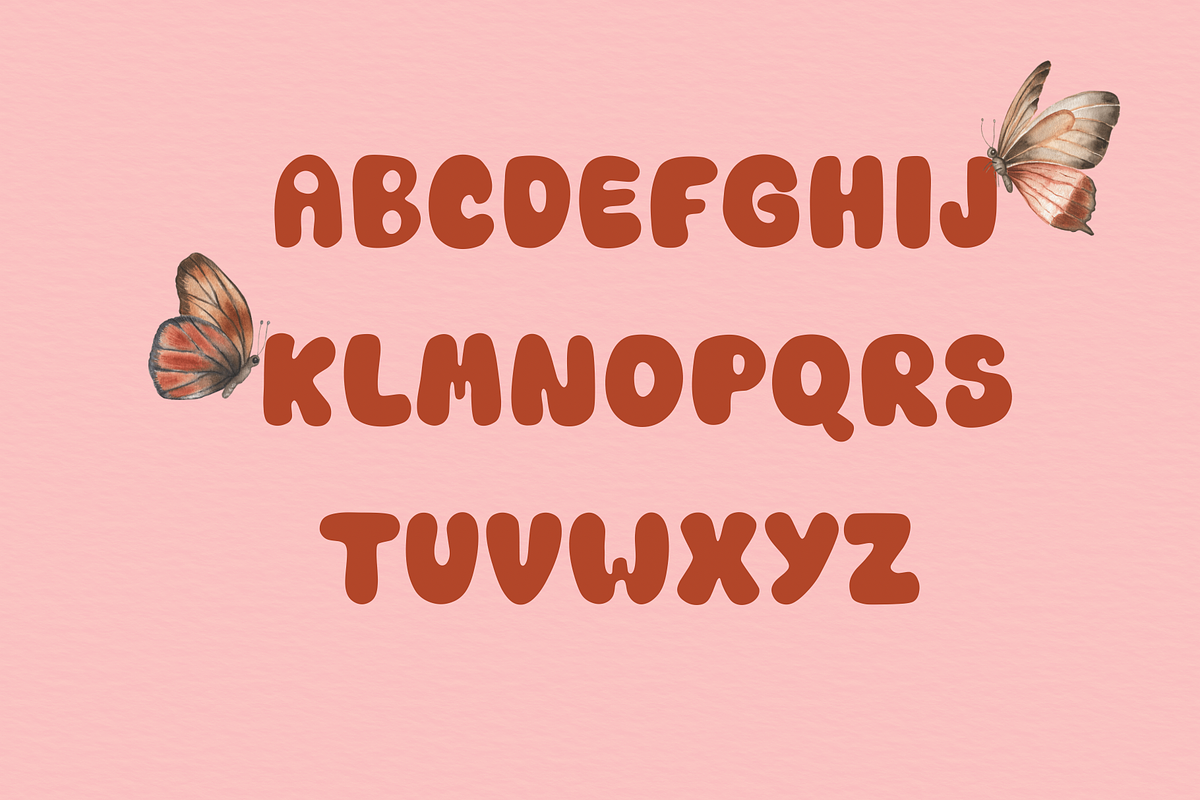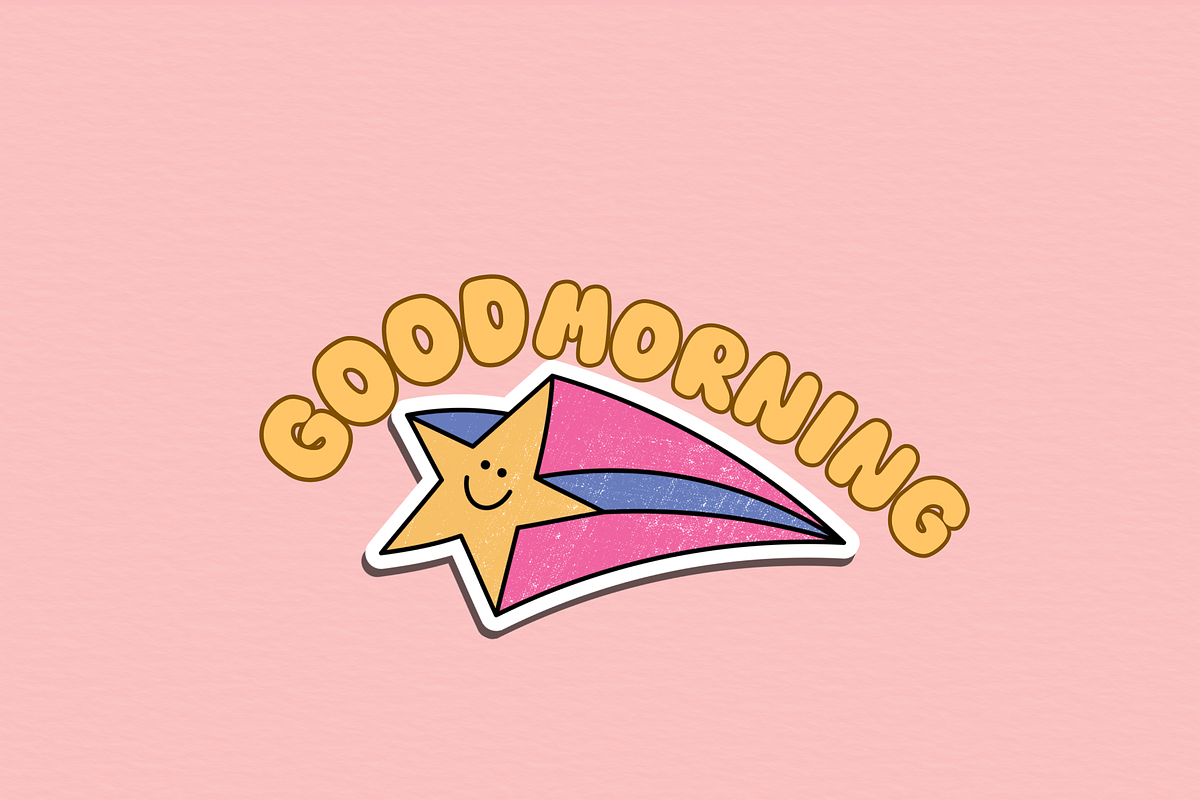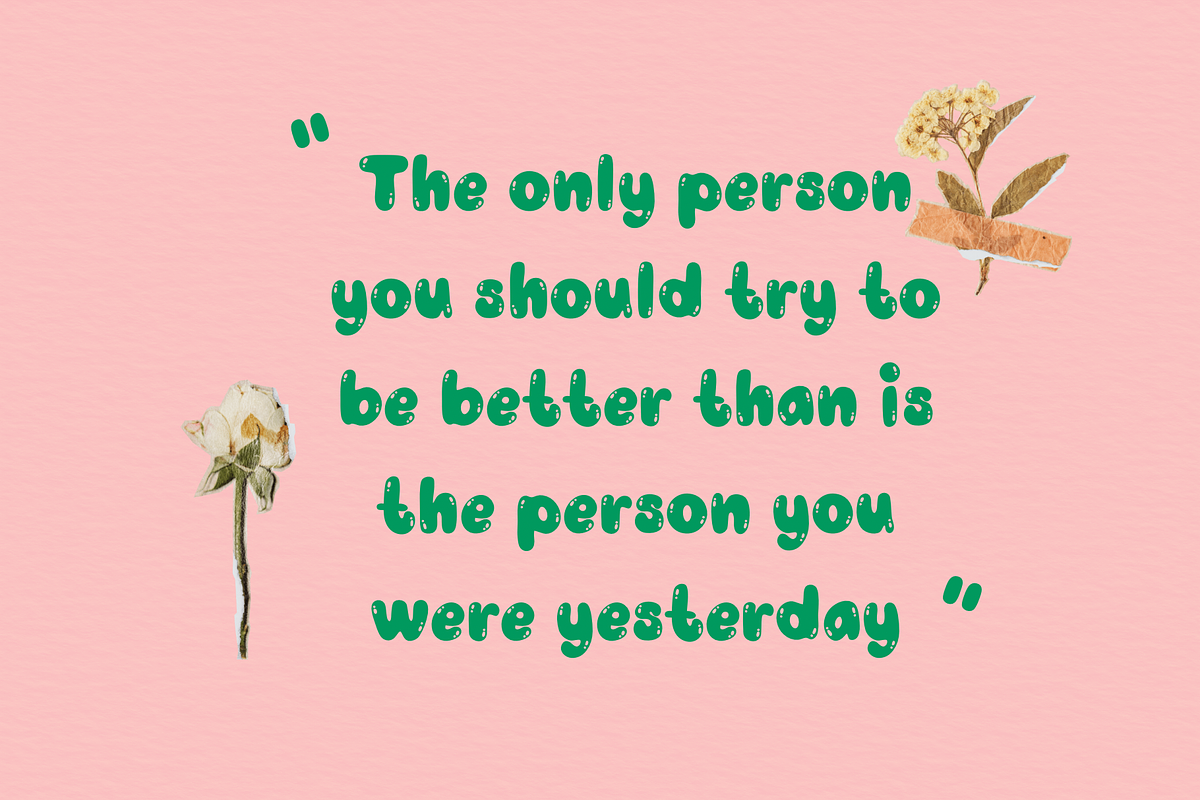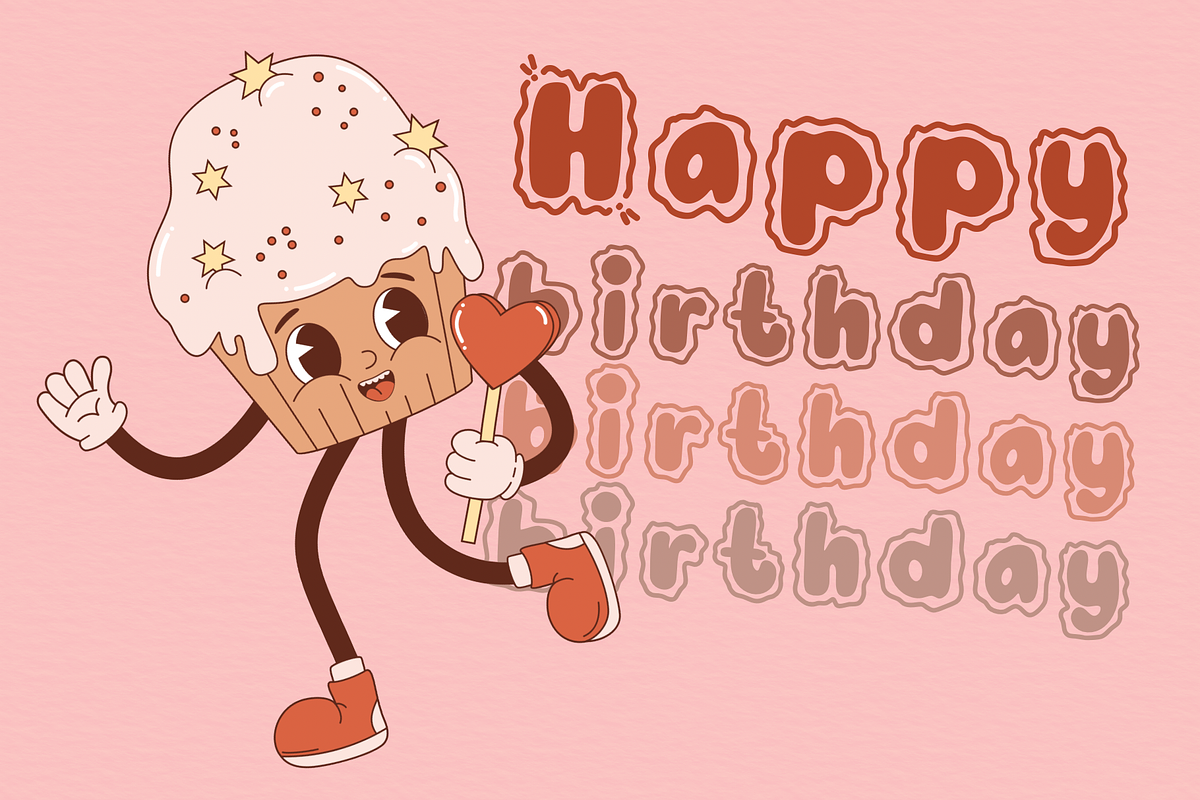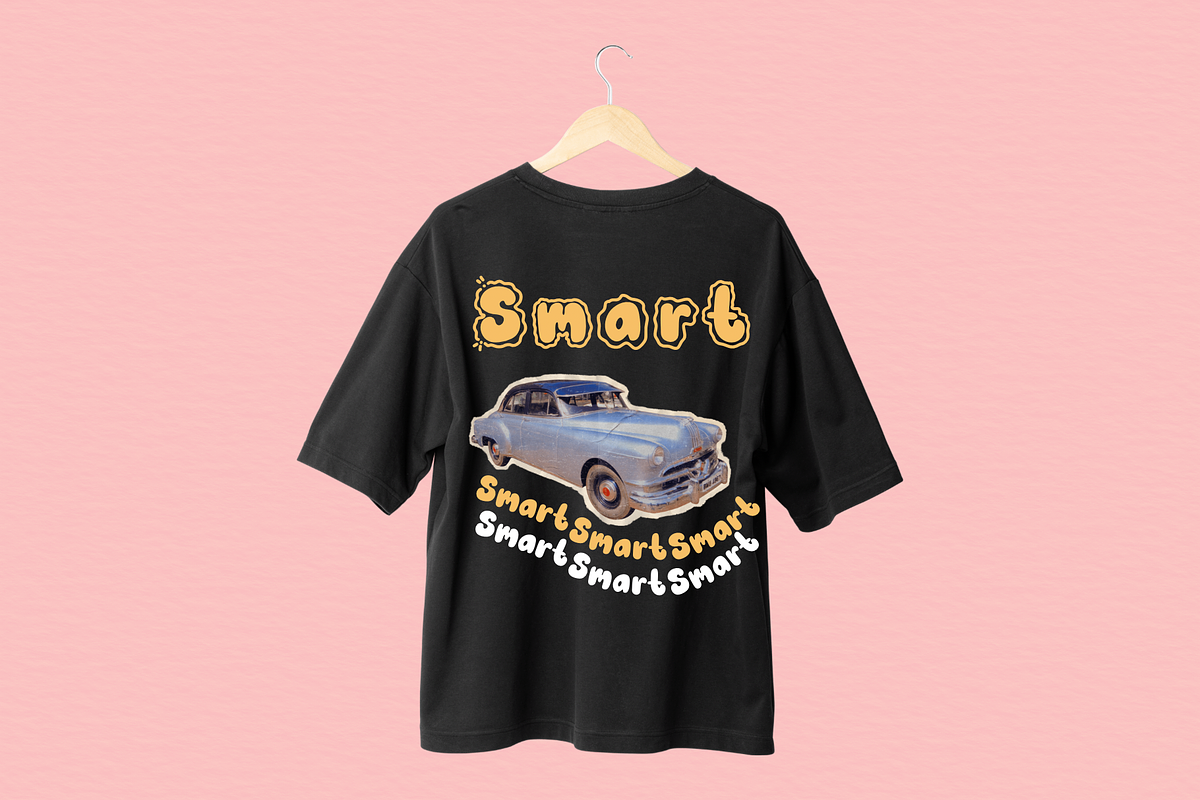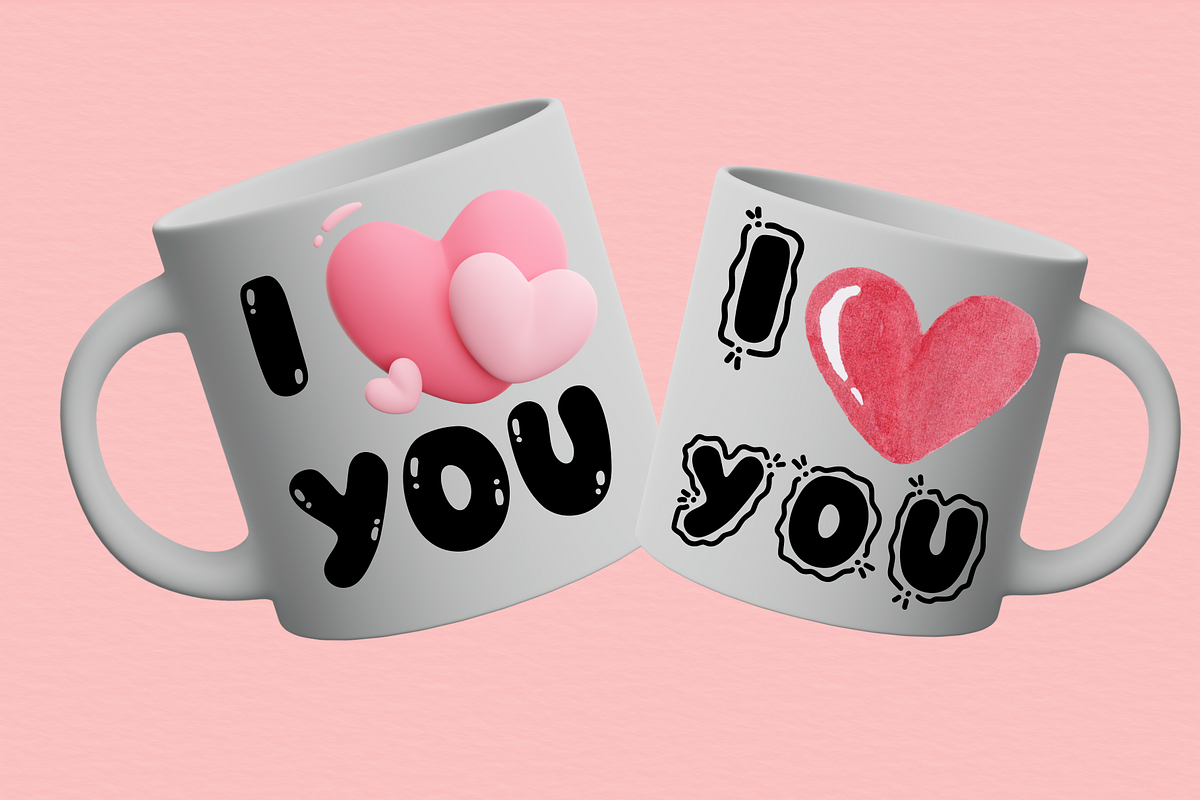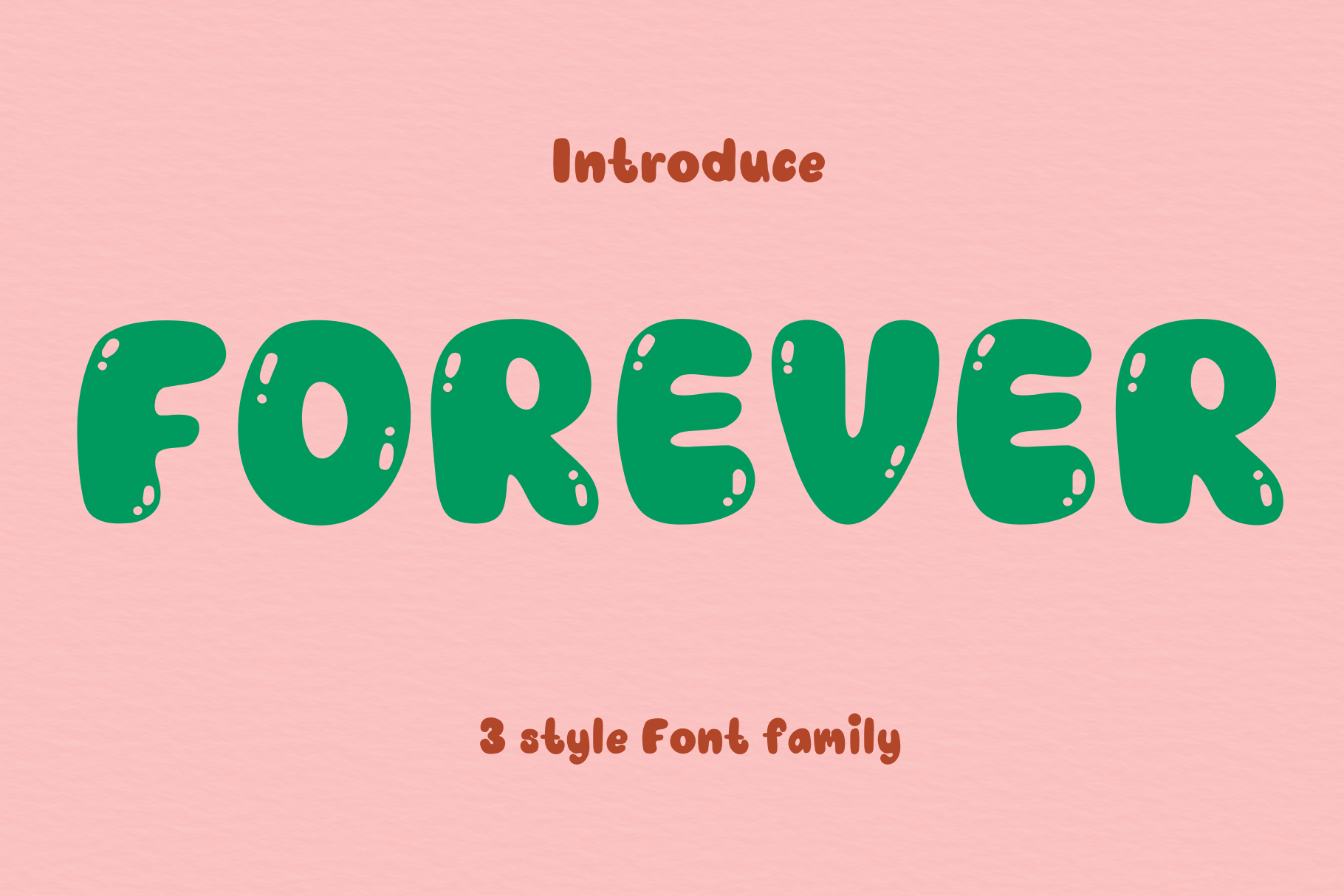
Forever display cute font
Forever family font that hides sweetness and charm, making your design work captivating and charming. The curved edges of the letters add an extra touch of loveliness.